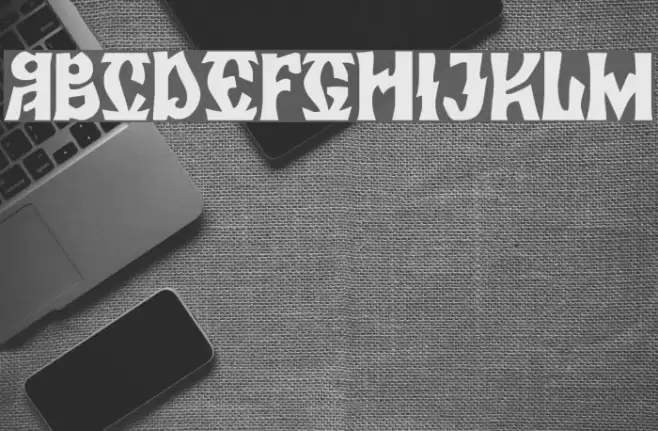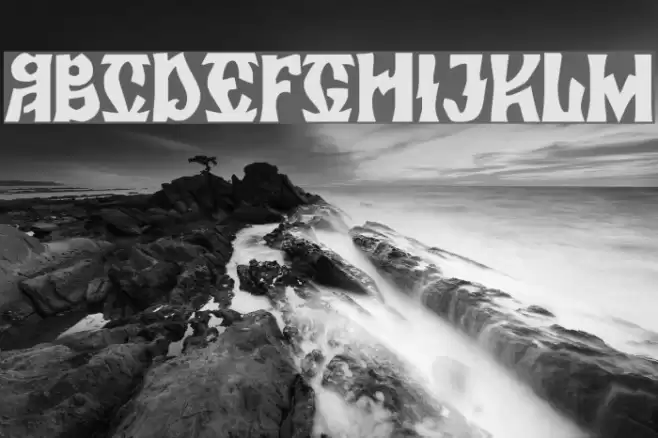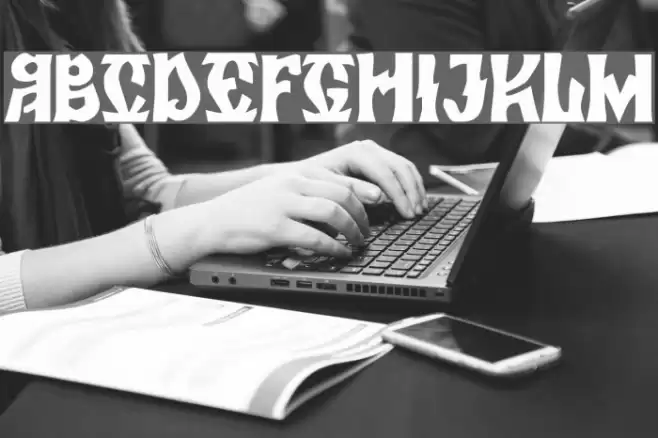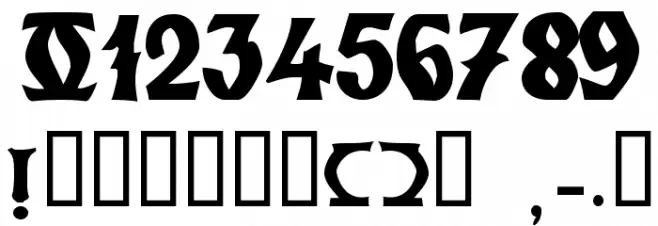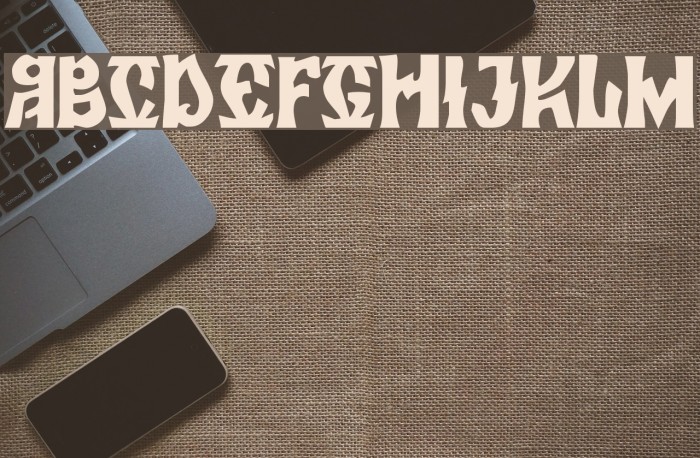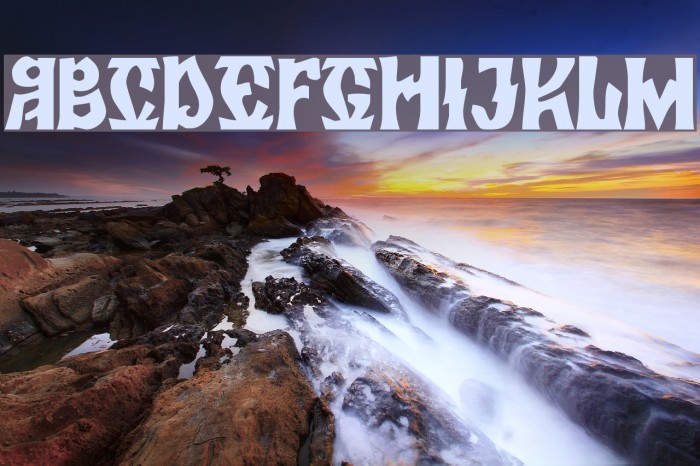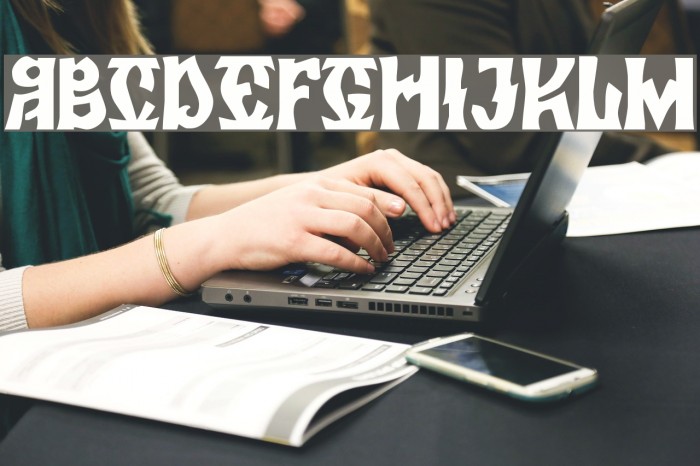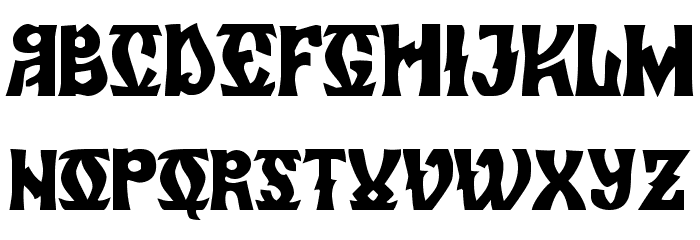
Zamolxis VI Font
Zamolxis VI Description
This font features a bold and striking design with a strong presence. The characters are crafted with sharp, angular edges and intricate details that give it a unique, almost tribal appearance. The uppercase letters are particularly dominant, with a heavy weight and a sense of movement and energy. The lowercase letters maintain the same stylistic elements, ensuring consistency throughout the typeface. Numbers and special characters are equally bold, with a design that complements the overall aesthetic. This font is ideal for creating impactful headlines or logos that demand attention.
A bold, angular font with a tribal-inspired design, perfect for impactful headlines from Gothic fonts.